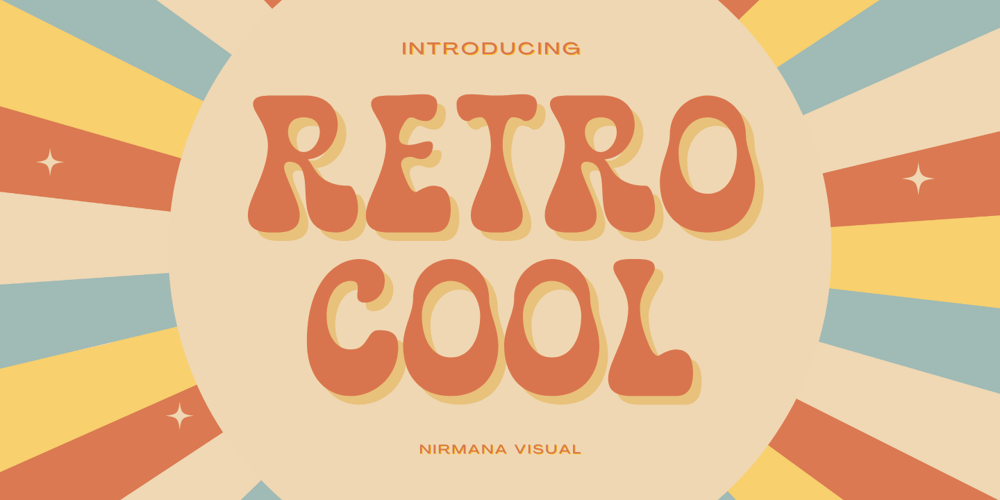
Retro Cool Font Family was designed by Sigit Dwipa and published by Nirmana Visual. Retro Cool contains 1 styles and family package options. Retro Cool , Inspired by 60s – 70s Design Era.Retro Cool offers beautiful typographic harmony for a diversity of design projects, including logos & branding, social media posts, advertisements & product designs.